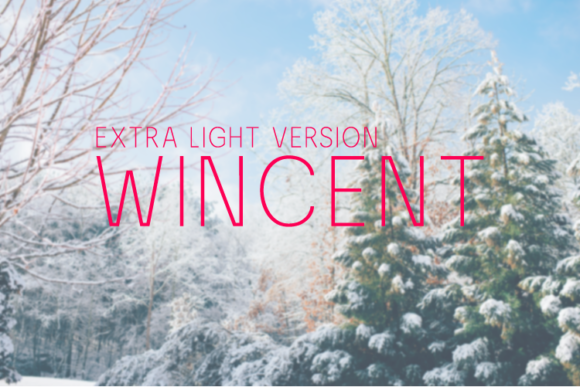
Unleash your creativity with Wincent Extra Light, the epitome of elegance and simplicity in the world of fonts. This sans-serif masterpiece, crafted by the skilled hands of Nan Design, is a visual symphony of clean lines, soft curves, and captivating forms.
Immerse yourself in the world of Wincent Extra Light, where every character dances with grace and harmony. Its delicate strokes and airy presence add a touch of refinement to any design project, making it the perfect choice for creating logos, branding, web design, and more.
Experience the versatility of Wincent Extra Light as it effortlessly adapts to a wide range of styles and themes. Whether you're a designer seeking a timeless font for your next project or a creative entrepreneur looking to make a lasting impression, Wincent Extra Light is your perfect companion.
With Wincent Extra Light, your designs will radiate a sense of sophistication and charm that resonates with your audience. Its understated elegance elevates your message, allowing it to shine through with clarity and impact.